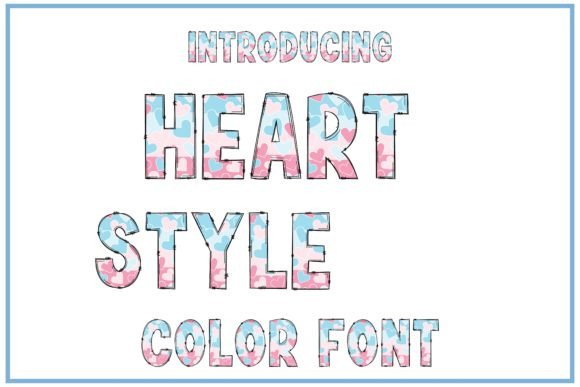
In a world where love blooms and hearts flutter, we present "Heart Style Font," a font family that captures the essence of romance and affection. Designed with precision and an eye for detail, this colorful font exudes a charm that will make your projects shine.
Meet "Heart Style Font," a font family that weaves emotions into words. The characters dance upon your screen, infused with patterns that symbolize the warmth of love, the excitement of new beginnings, and the sweet whispers of the heart. From love letters that speak from the soul to heartfelt invitations that promise an evening of bliss, "Heart Style Font" transforms words into cherubs that carry your message with grace.
Picture this: Your love letters adorned with delicate hearts, each stroke of the pen echoing the rhythm of your beating heart. With "Heart Style Font," every word becomes a brushstroke, painting a tale of passion and devotion. Let your love soar on wings of typography, reaching hearts with the eloquence and charm of a thousand love songs.
But "Heart Style Font" is not confined to romantic endeavors. Its versatility knows no bounds, extending to invitations, greeting cards, posters, and any project where a touch of whimsy and enchantment is desired. Embrace the power of hearts and patterns, capturing the attention of your audience with designs that dance and inspire.
With "Heart Style Font" as your creative ally, you'll discover a world where imagination reigns supreme. Express your individuality, let your emotions flow, and turn ordinary words into extraordinary expressions of the heart. Join the ranks of creative visionaries, storytellers, and designers who have fallen in love with "Heart Style Font."
Unleash the magic of "Heart Style Font" today, and watch as your words transform into captivating works of art that resonate with the soul.